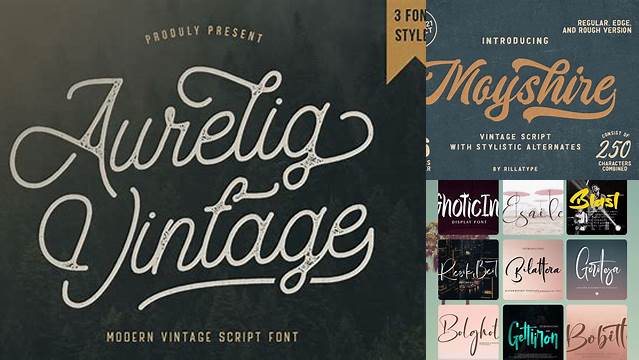
Vintage Script Fonts: Commercial Use Guide
Hey guys! Are you on the hunt for the perfect vintage script font to add a touch of elegance and nostalgia to your projects? Look no further! In this comprehensive guide, we'll dive deep into the world of vintage script fonts for commercial use, exploring what makes them so special, where to find them, and how to use them effectively. Vintage script fonts are a fantastic way to infuse your designs with a sense of history, craftsmanship, and timeless beauty. These fonts often evoke the charm of handwritten letters, vintage signage, and classic typography, making them ideal for a wide range of applications, from logos and branding to invitations and packaging. Whether you're a seasoned designer or just starting out, understanding the nuances of vintage script fonts will undoubtedly elevate your creative work. Vintage script fonts aren't just about aesthetics; they're also about storytelling. Each curve, flourish, and stroke carries a unique character that can convey emotions, time periods, and specific brand identities. Imagine a wedding invitation adorned with a delicate, flowing script, or a vintage-inspired logo that instantly transports you to a bygone era. The power of these fonts lies in their ability to connect with your audience on an emotional level, creating a lasting impression. So, if you're ready to embark on a journey through the world of vintage typography, grab a cup of coffee, settle in, and let's explore the wonderful realm of vintage script fonts for commercial use. We'll cover everything from identifying the key characteristics of these fonts to discovering the best resources for finding them. Get ready to unlock the secrets of timeless design and add a touch of vintage magic to your next project!
What Makes a Font a “Vintage Script”?
So, what exactly defines a vintage script font? It's more than just a cursive typeface; it's about capturing the essence of a specific era and handwriting styles from the past. Vintage script fonts typically mimic the flowing, elegant strokes of calligraphy, hand-lettering, and signage from the early to mid-20th century. These fonts often feature distinctive characteristics like swashes, ligatures, and varying stroke weights, which contribute to their unique charm and authenticity. Think about the graceful curves of a classic Spencerian script or the bold, eye-catching letters of a vintage sign painter's hand. These are the influences that shape the aesthetic of vintage script fonts. One of the key elements that sets vintage scripts apart is their imperfections. Unlike modern, perfectly digitized fonts, vintage scripts often retain the subtle irregularities and quirks of hand-drawn lettering. This can include slight variations in letter height, stroke thickness, and spacing, which add to their character and make them feel more human and authentic. These imperfections are not flaws; they're part of the font's unique story and history. Another defining characteristic of vintage script fonts is the presence of decorative elements like swashes and flourishes. These ornamental additions can add a touch of elegance and sophistication to your designs, making them ideal for projects that require a formal or luxurious feel. Swashes are extended strokes that flow from the letters, while flourishes are decorative curls and loops that enhance the overall visual appeal of the font. In addition to their aesthetic qualities, vintage script fonts also carry a sense of history and nostalgia. They evoke a time when craftsmanship and attention to detail were highly valued, and they can add a touch of timelessness to your designs. Whether you're creating a vintage-inspired logo, a wedding invitation, or a product label, a well-chosen vintage script font can help you capture the spirit of a bygone era and connect with your audience on an emotional level. Understanding these key characteristics will help you identify and appreciate the unique beauty of vintage script fonts.
Where to Find Vintage Script Fonts for Commercial Use
Okay, guys, now that we know what makes a font a vintage script, let's talk about where to find these typographic gems for your commercial projects! Luckily, there are tons of resources available online, ranging from free font websites to premium font foundries. But navigating this vast landscape can be overwhelming, so we're here to guide you through the best places to discover the perfect vintage script font for your needs. One of the most popular options is to explore online font marketplaces like MyFonts, Creative Market, and Fontspring. These platforms offer a wide selection of high-quality vintage script fonts from independent designers and foundries. While these fonts typically come with a price tag, the investment is often worth it for the quality, originality, and commercial licensing they provide. When browsing these marketplaces, be sure to use relevant keywords like "vintage script," "retro script," "handwritten script," or "calligraphy font" to narrow down your search. Another great resource for finding vintage script fonts is individual font foundries. Many foundries specialize in creating vintage-inspired typefaces, and their websites often feature a curated collection of their best work. Some notable foundries to check out include Sudtipos, Laura Worthington Type, and Cultivated Mind. Exploring these foundries can be a great way to discover unique and less common vintage script fonts that you won't find on the major marketplaces. If you're on a tight budget, don't worry! There are also several websites that offer free vintage script fonts for commercial use. However, it's important to be cautious when downloading free fonts, as their quality and licensing terms can vary. Always double-check the license agreement to ensure that the font is indeed free for commercial use and that it meets your specific needs. Some reputable websites for free fonts include Google Fonts, Font Squirrel, and DaFont (be sure to filter by commercial use). In addition to online resources, you can also find vintage script fonts in physical font catalogs and specimen books. These resources can be a great source of inspiration, and they often feature fonts that are not available digitally. Many libraries and design archives have collections of these materials, so consider doing some research in your local area. Remember, finding the right vintage script font is a process of exploration and discovery. Take your time, browse different resources, and don't be afraid to experiment. With a little patience and research, you'll find the perfect font to add a touch of vintage charm to your designs.
Tips for Using Vintage Script Fonts Effectively
Alright, you've found the perfect vintage script font – awesome! But now comes the crucial part: using it effectively in your designs. Vintage script fonts, while beautiful, can be tricky to work with if not handled carefully. They have a strong personality and can easily overpower a design if not used thoughtfully. So, let's dive into some essential tips for using vintage script fonts like a pro. First and foremost, consider legibility. While vintage script fonts are known for their elaborate flourishes and intricate details, these features can sometimes compromise readability, especially at smaller sizes. Always ensure that your chosen font is legible in the context of your design. Avoid using highly decorative scripts for body text or lengthy paragraphs. Instead, reserve them for headlines, logos, or other prominent elements where they can truly shine. When using vintage script fonts, it's crucial to think about hierarchy and contrast. Pair your script font with a simpler, more legible typeface for body text or supporting elements. This creates a visual contrast that makes the script font stand out while ensuring that the overall design remains balanced and easy to read. A classic pairing is a vintage script font with a clean sans-serif or a traditional serif typeface. Think about how the fonts work together to create a cohesive and harmonious visual experience. Another key consideration is the overall tone and message of your design. Vintage script fonts evoke a sense of nostalgia, elegance, and craftsmanship, so they're best suited for projects that align with these qualities. They work beautifully for wedding invitations, vintage-inspired branding, packaging for artisanal products, and designs that aim to convey a sense of tradition or history. However, they might not be the best choice for modern, minimalist designs or projects that require a more contemporary feel. Pay attention to the kerning and letter spacing of your vintage script font. Due to their intricate letterforms and varying stroke weights, vintage scripts often require careful kerning adjustments to ensure that the letters are spaced evenly and that the overall text appears balanced. Take the time to fine-tune the spacing between individual letters and words to achieve a polished and professional look. Finally, don't be afraid to experiment with different weights and styles within a font family. Many vintage script fonts come in multiple weights, ranging from light and delicate to bold and dramatic. Using different weights can add visual interest and help you create a more dynamic and engaging design. Remember, the key to using vintage script fonts effectively is to use them sparingly and thoughtfully. They're a powerful design tool, but they require careful consideration and attention to detail. By following these tips, you can harness the beauty of vintage script fonts and create designs that are both visually stunning and highly effective.
So, there you have it, guys! A comprehensive exploration of the wonderful world of vintage script fonts for commercial use. We've covered everything from what makes a font a vintage script to where to find them, how to use them effectively, and the importance of understanding licensing terms. Vintage script fonts are a powerful design tool that can add a touch of elegance, nostalgia, and personality to your projects. They evoke a sense of history, craftsmanship, and timeless beauty, making them ideal for a wide range of applications, from branding and logos to invitations and packaging. Whether you're a seasoned designer or just starting out, incorporating vintage script fonts into your designs can elevate your work and help you connect with your audience on an emotional level. Remember, the key to using these fonts effectively is to choose them thoughtfully, consider their legibility, and pair them with other typefaces that complement their style. Pay attention to kerning and spacing, and don't be afraid to experiment with different weights and styles. And most importantly, always ensure that you have the proper license for commercial use. By following the tips and guidelines we've discussed, you can confidently use vintage script fonts to create designs that are both visually stunning and commercially successful. So, go ahead, explore the vast world of vintage typography, discover your favorite fonts, and start adding a touch of timeless charm to your next project. The possibilities are endless!